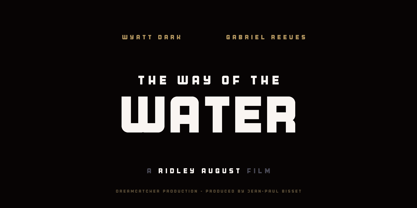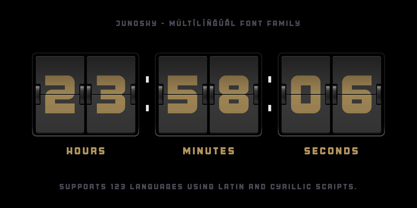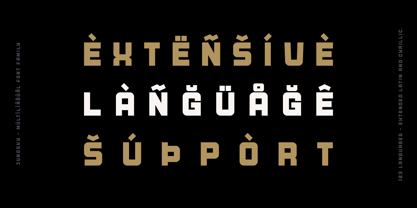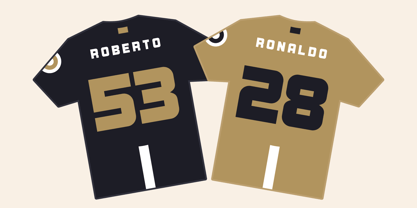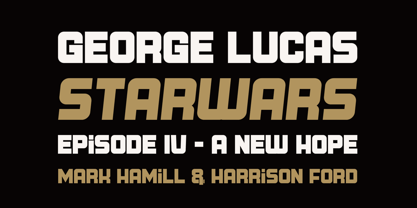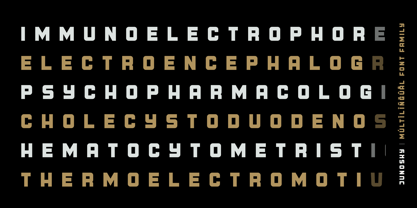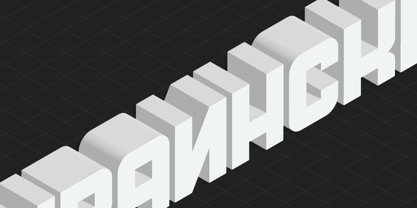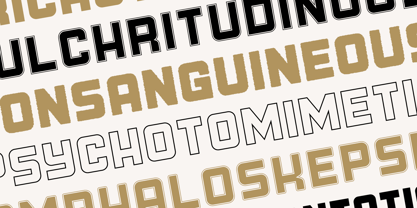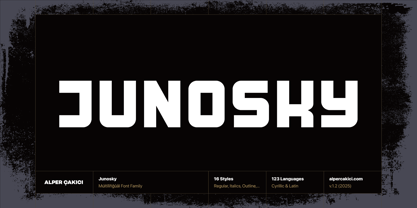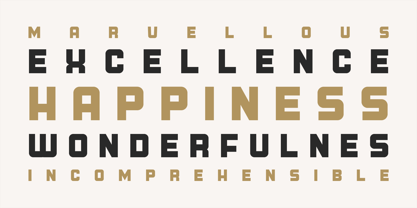
Junosky
La famille de polices Junosky a été conçue par Alper Çakıcı et publiée par AlperCakici. Junosky contient 16 styles et options de package familial. En savoir plus sur cette famille
Junosky is a geometric and bold display font family designed for versatility across digital and print media. It includes 16 styles, featuring Inline, Outline, Regular, Rough, Rounded, Rounded Inline, Rounded Outline, Rounded Rough, and their corresponding italics. Each style is meticulously crafted with precise kerning and balanced geometry, ensuring consistency and readability at any scale. Supporting 123 languages, including full Cyrillic, Junosky enables seamless multilingual typography for global brands and design projects. Its clean structure and confident forms make it ideal for logos, headlines, posters, packaging, and branding. Whether you prefer sharp precision or softened rounded contours, Junosky offers the flexibility and performance needed for modern typographic design.